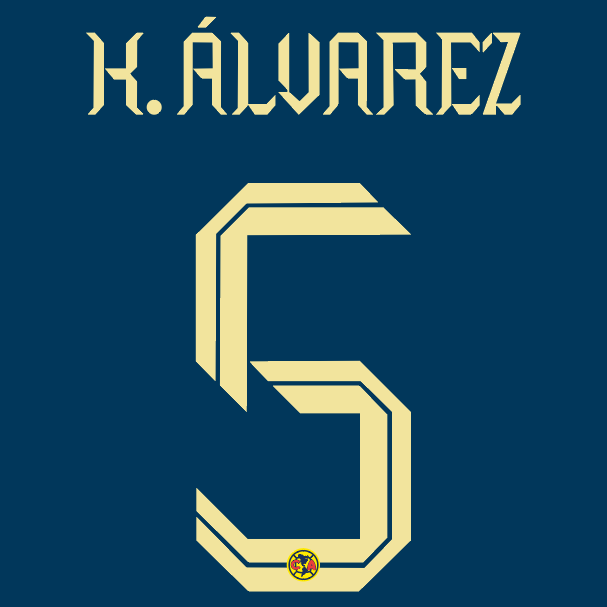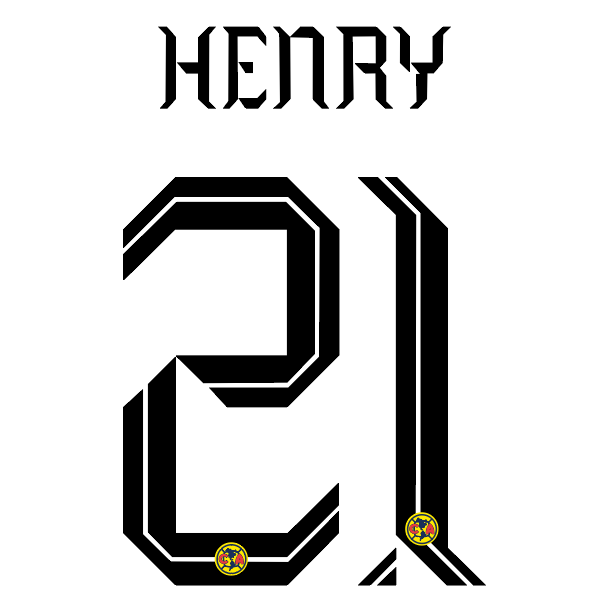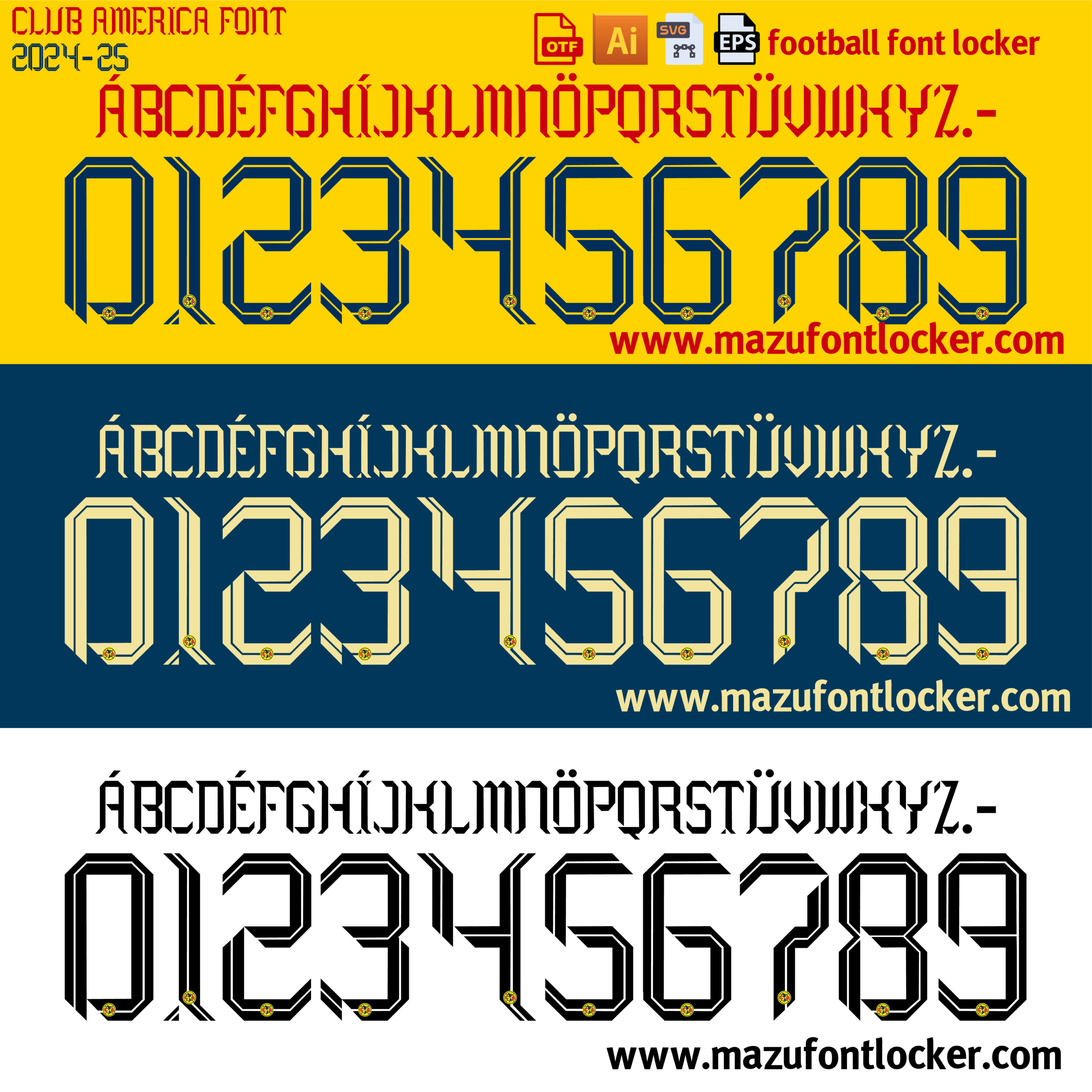
Club America 2024-25 Font Vector
Club America 2024-2025 font, names and numbers, fully editable VECTOR file for customisation.
Complete design with the Club America 2024-2025 numbering and lettering for the Liga MX Match.